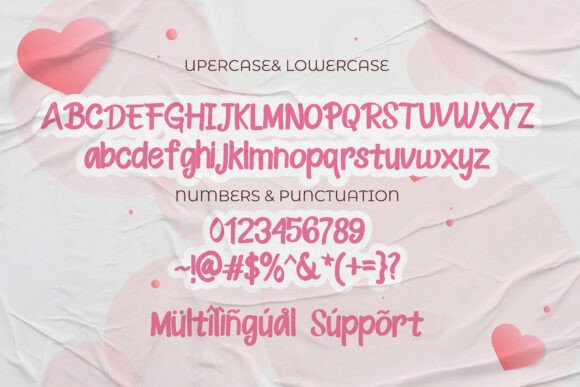
Discover the Elegance of Valena Mono Font: A Perfect Blend of Classic and Modern Sophistication
In the realm of typography, few fonts manage to strike a balance between classic appeal and contemporary sophistication as effortlessly as Valena Mono. This enchanting display font has been gaining attention for its unique blend of playful and refined characteristics, making it an excellent choice for designers looking to inject a dose of chic charm into their creative projects. In this article, we’ll delve into the world of Valena Mono, exploring its features, benefits, and uses, and why it’s becoming a go-to font for those seeking to elevate their design endeavors.
The Genesis of Valena Mono: Understanding its Unique Appeal
Valena Mono’s charm lies in its ability to seamlessly merge traditional typographic elements with modern design sensibilities. This font is not just a collection of characters; it’s an experience that offers designers a versatile tool to convey their message with elegance and flair. Whether you’re working on a branding project, a website design, or marketing materials, Valena Mono provides the perfect blend of sophistication and playfulness to capture your audience’s attention.
Key Features of Valena Mono
- Classic yet Contemporary: Valena Mono boasts a timeless design that feels both vintage and current, making it versatile for various design applications.
- Playful and Refined: The font strikes a delightful balance between playful elements and refined characteristics, ensuring your designs are both engaging and sophisticated.
- High Readability: Despite its decorative nature, Valena Mono maintains high readability, making it suitable for headlines, titles, and short paragraphs.
- Versatility: From digital platforms to print materials, Valena Mono adapts effortlessly, ensuring consistency across different mediums.
Why Choose Valena Mono for Your Design Projects?
Choosing the right font for your design project can be daunting, given the numerous options available. However, Valena Mono stands out for several reasons:
Enhances Creative Expression
Valena Mono is more than just a font; it’s a means of expression. Its unique character set allows designers to convey their message with a level of sophistication and charm that is hard to achieve with more conventional fonts.
Elevates Brand Identity
For brands looking to establish a distinctive identity, Valena Mono offers a stylish and memorable typographic solution. Its elegance and modernity can significantly enhance a brand’s visual appeal, making it more noticeable in a crowded market.
Streamlines Design Process
With Valena Mono, designers can achieve a high level of aesthetic appeal without compromising on readability or versatility. This streamlines the design process, allowing for more efficient project completion without sacrificing quality.
Using Valena Mono in Different Design Applications
One of the significant advantages of Valena Mono is its adaptability across various design applications. Here are a few ways you can incorporate this font into your projects:
Digital Design
In digital design, fonts need to be visually appealing and highly readable across different devices and screen sizes. Valena Mono excels in this area, making it perfect for website headers, mobile app interfaces, and digital marketing materials.
Print Design
For print materials such as brochures, posters, and business cards, Valena Mono offers a level of sophistication and elegance that can elevate your designs. Its clarity and precision ensure that your message is conveyed effectively, even at smaller sizes.
Branding and Identity
When it comes to branding, consistency and recognizability are key. Valena Mono can become a part of your brand’s visual identity, providing a cohesive and stylish look across all your marketing materials.
Tips for Maximizing the Impact of Valena Mono
To get the most out of Valena Mono, consider the following tips:
Pair it Wisely
When pairing Valena Mono with other fonts, choose complementary fonts that enhance its elegance without overpowering it. A simple sans-serif or serif font for body text can create a harmonious design.
Experiment with Sizes and Colors
Don’t be afraid to experiment with different sizes and colors to make Valena Mono stand out. Its versatility allows it to shine in various contexts, from large headlines to smaller captions.
Consider Line Spacing and Kerning
Pay attention to line spacing and kerning to ensure that your text is easy to read. Proper spacing can significantly enhance the overall look and readability of your design.
Valena Mono is a remarkable font that brings a unique blend of classic charm and modern sophistication to the world of typography. Its versatility, elegance, and readability make it an excellent choice for designers looking to elevate their creative projects. Whether you’re working on a branding campaign, website design, or print materials, Valena Mono offers the perfect combination of style and functionality. By incorporating Valena Mono into your design toolkit, you’re not just choosing a font; you’re embracing a design philosophy that values beauty, clarity, and creativity.